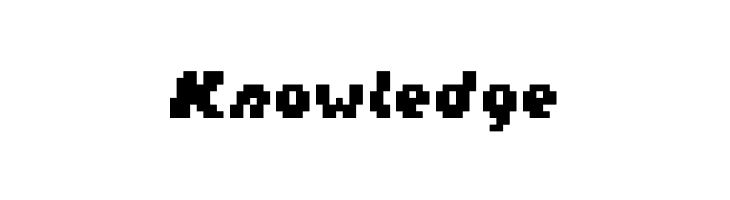
A pixelated cursive font blending digital and handwritten styles.
Turbineable Regular Font
A bold, playful font with a checkered pattern and rounded characters.
Frampoase Font
A playful, pixelated bubble font with a retro, video game-inspired aesthetic.
Enopstal Font